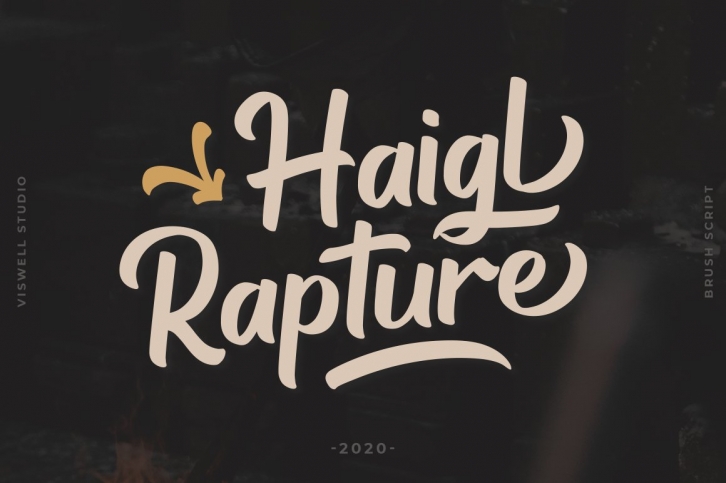
Haigl Rapture is a trendy and unique font with an authentic style. It was designed by Viswell Studio and it's a great choice for creative people who need such a font. It was released on June 18, 2020 and the file size is 12.71 MB. Haigl Rapture will add an organic vibe to any design idea!